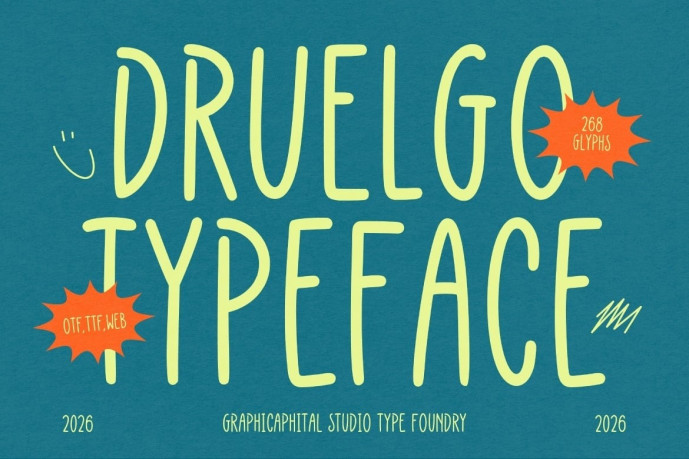
Druelgo Font
Designer: Graphicapital
Druelgo is a playful typeface with a casual, handcrafted touch. Its tall, slightly asymmetrical letterforms create a relaxed and expressive feel, making it ideal for event posters, creative branding, and engaging social media content.
Ideal for branding, posters, headlines, packaging, album art, game visuals, and promotional designs. It adds personality to any creative project and helps your message stand out effortlessly.